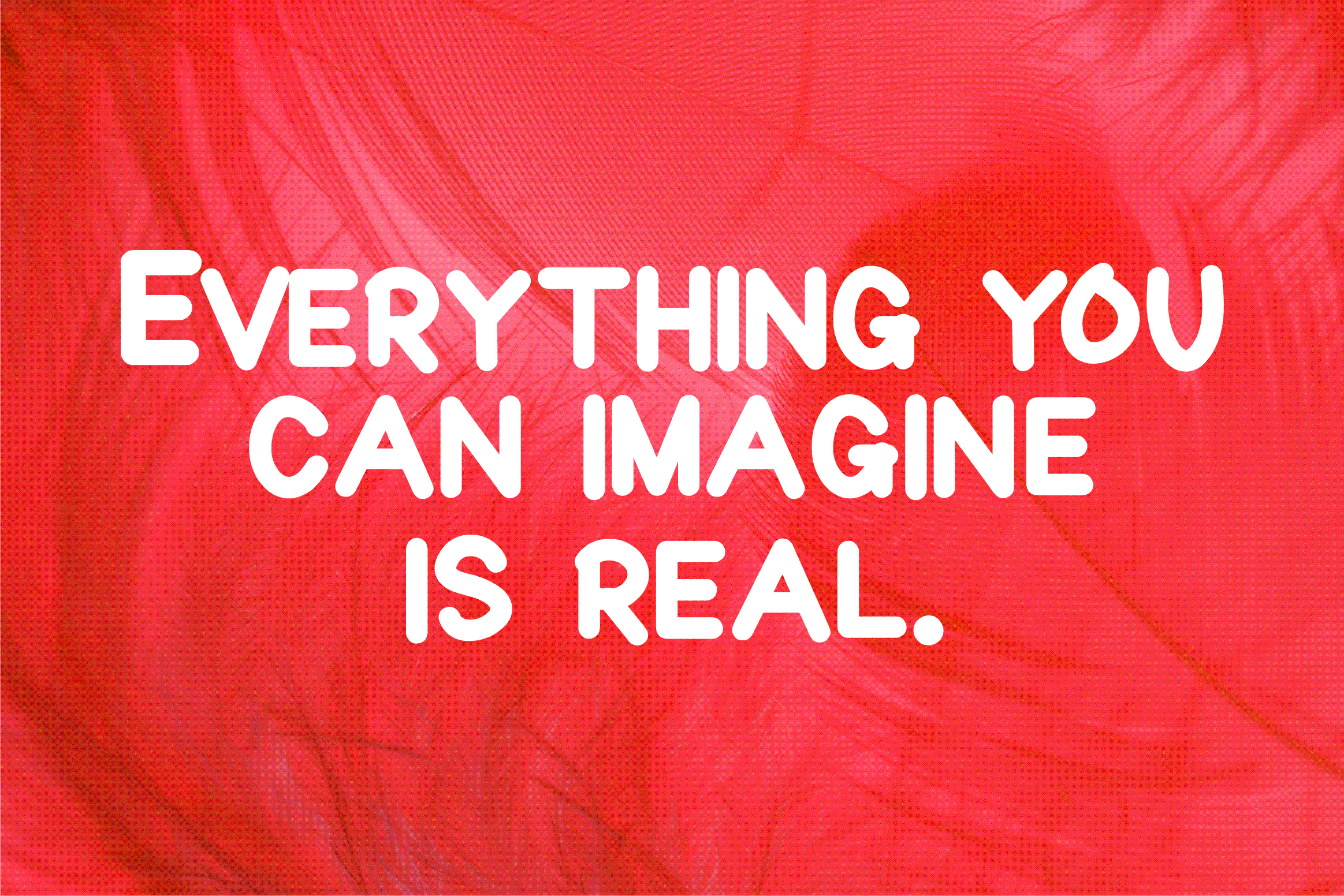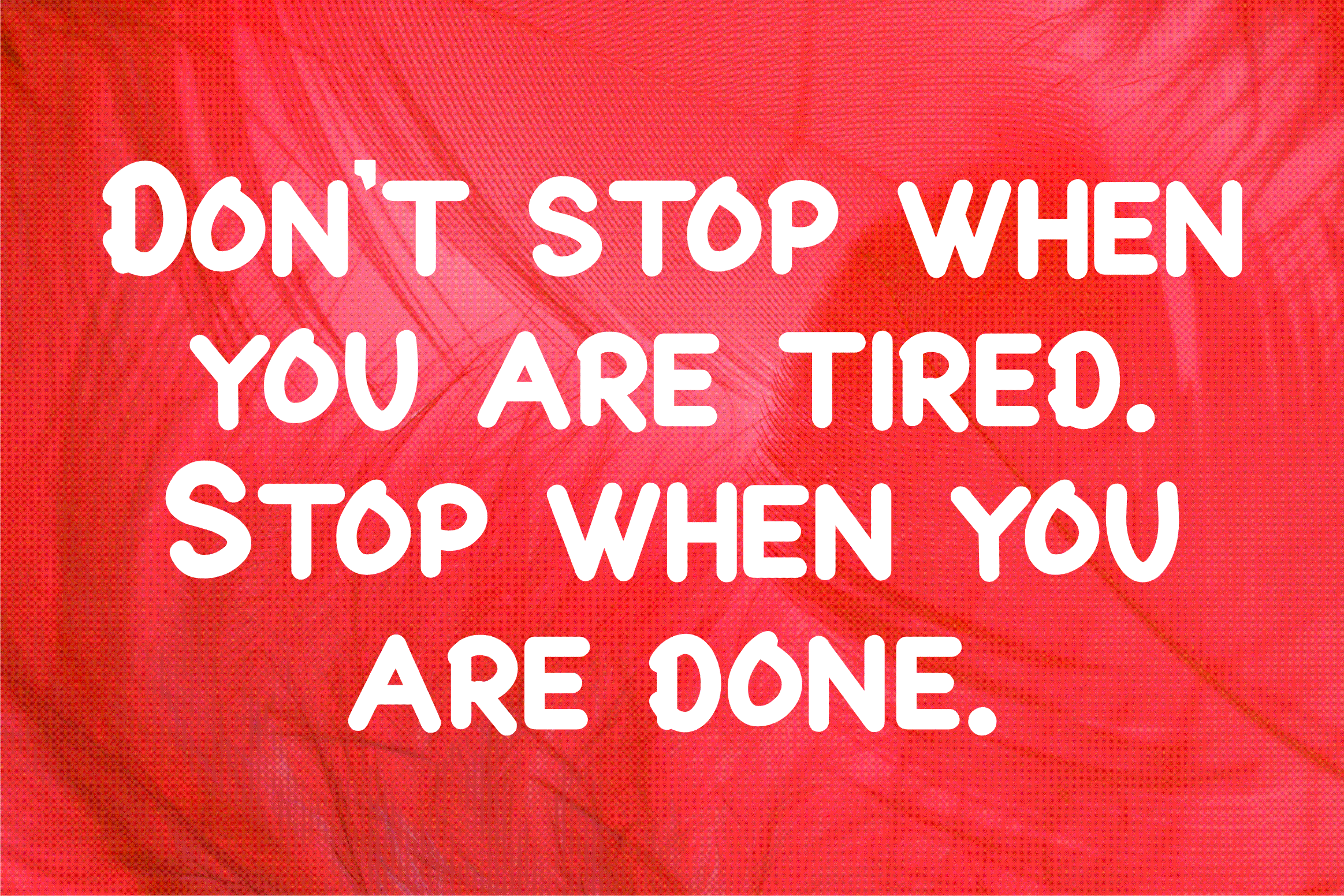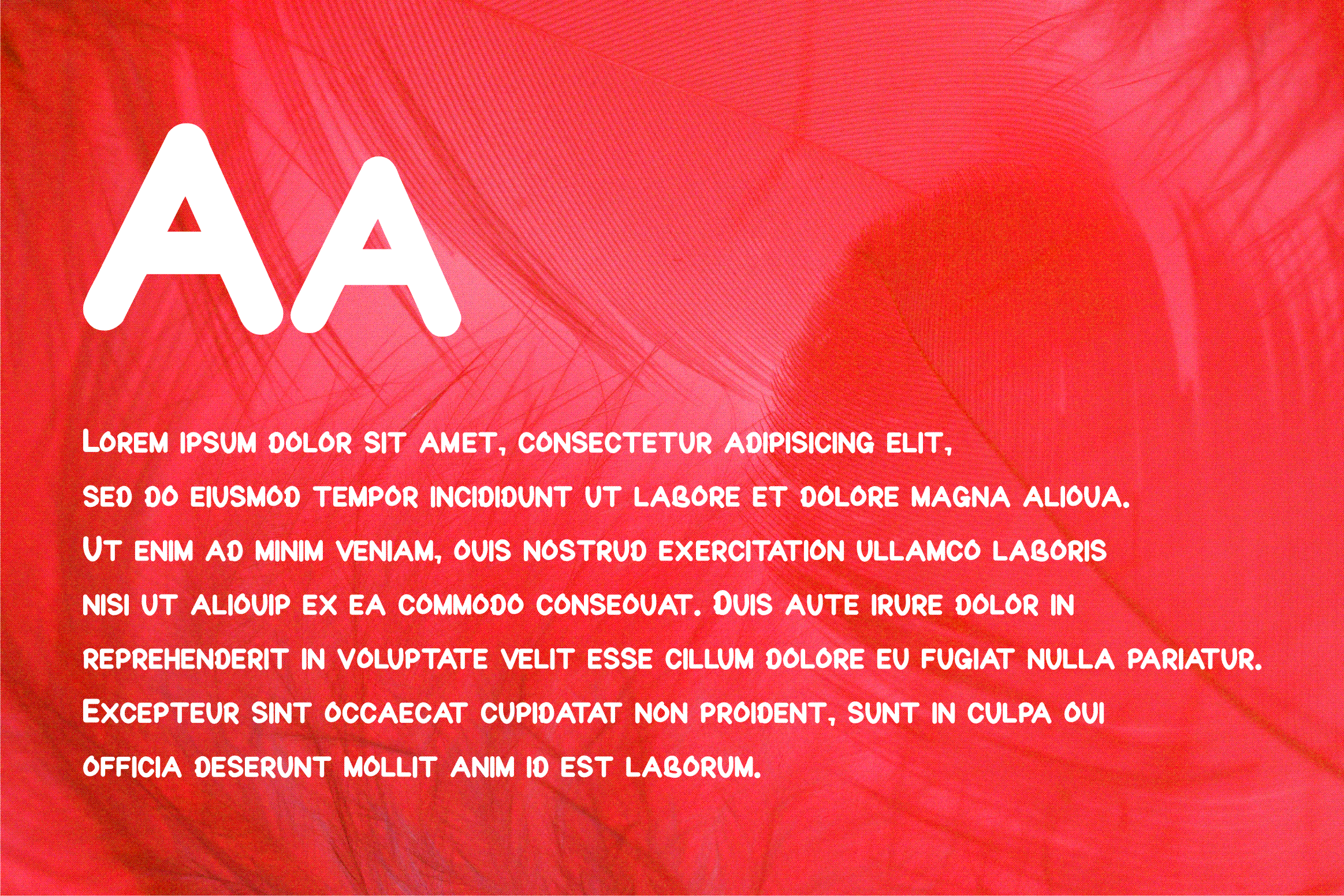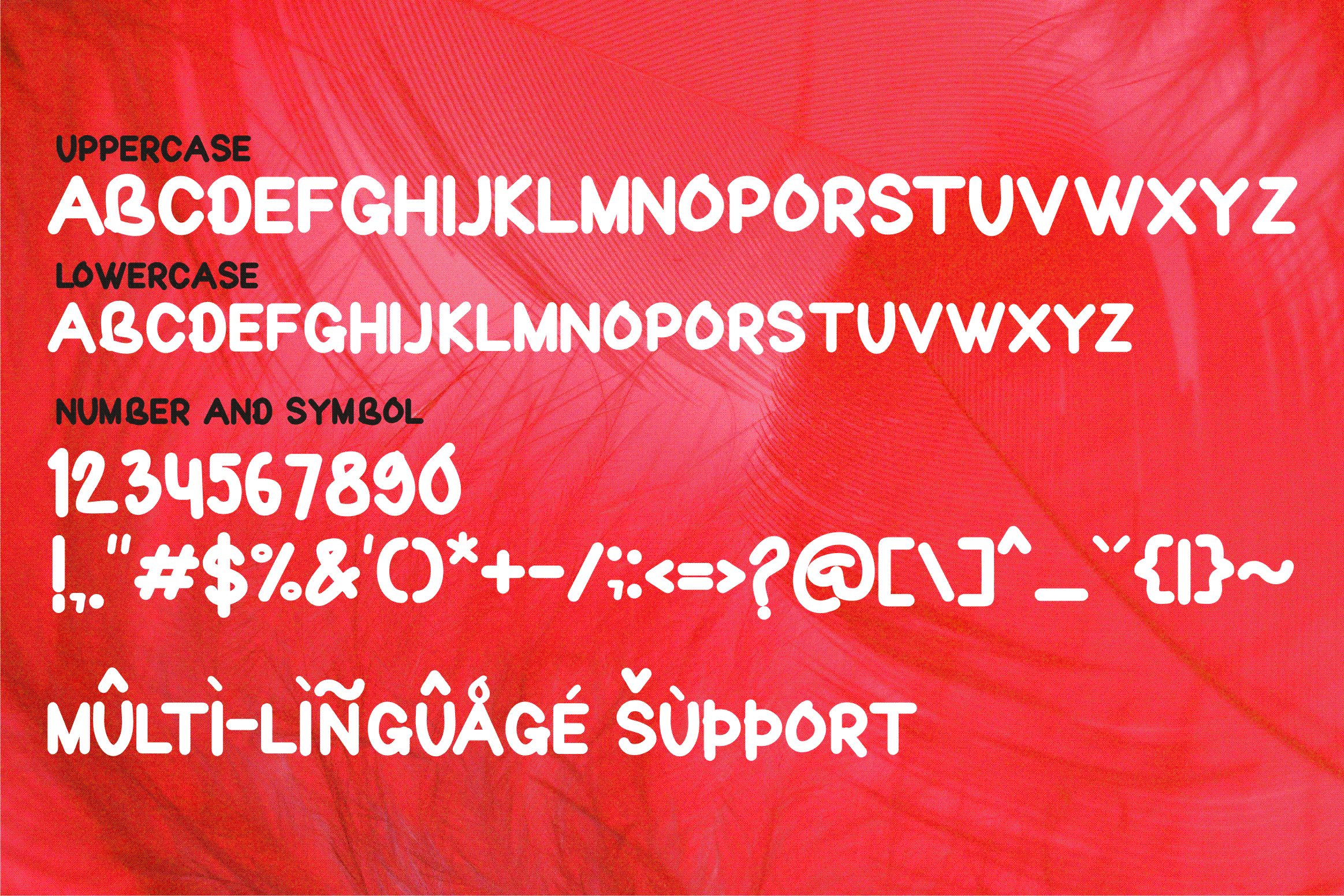
Sun Ghanties Font
Sun Ghanties Display Font
This is a simple and cool looking display font, that will truly inspire your works. Use this font for your designs and explore its endless possibilities.